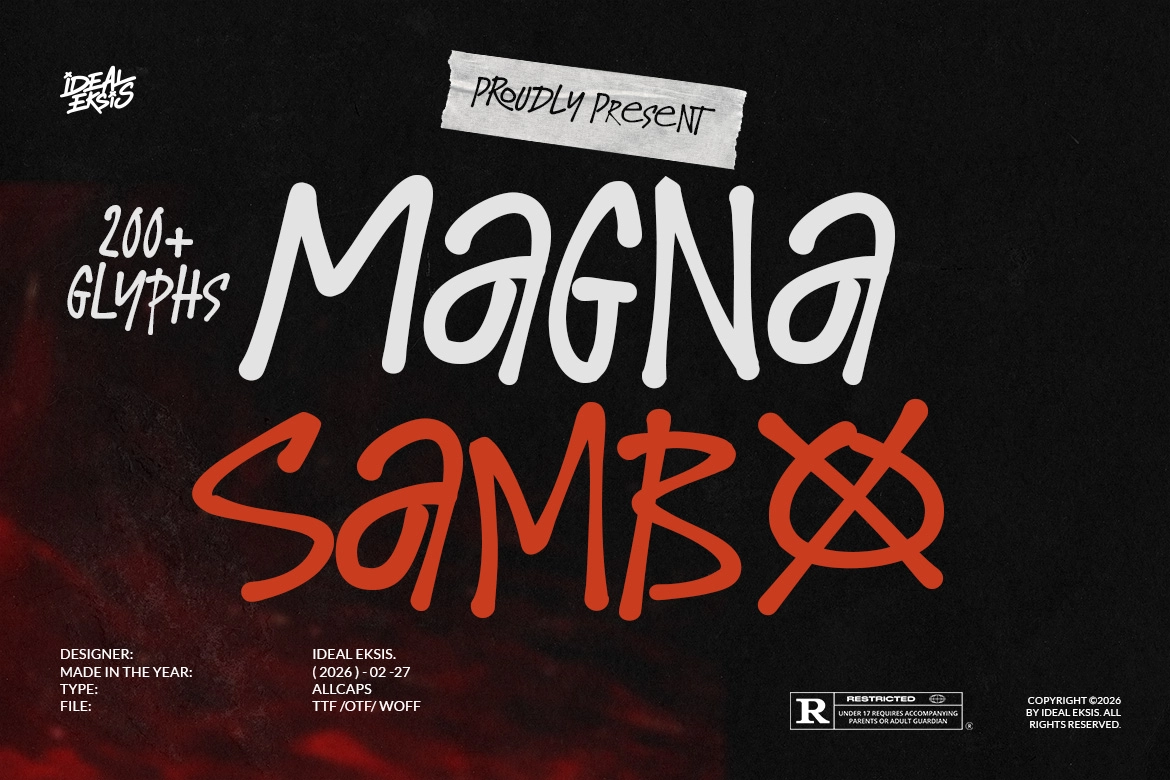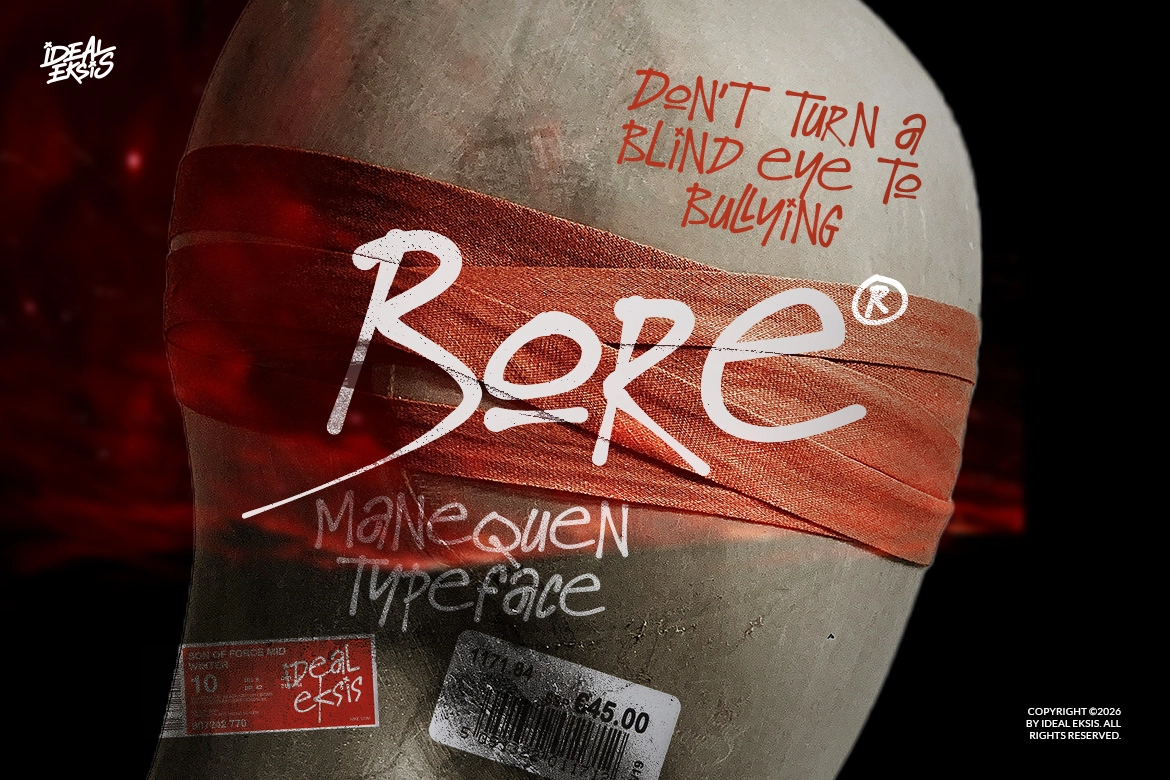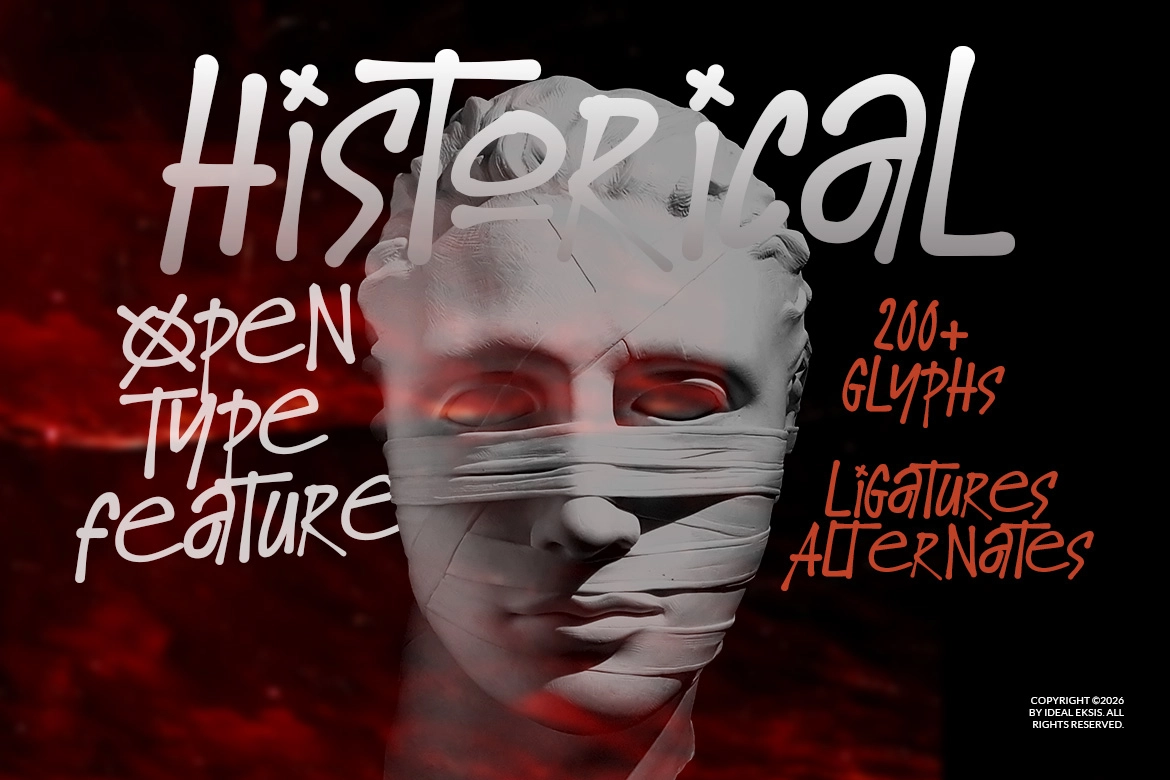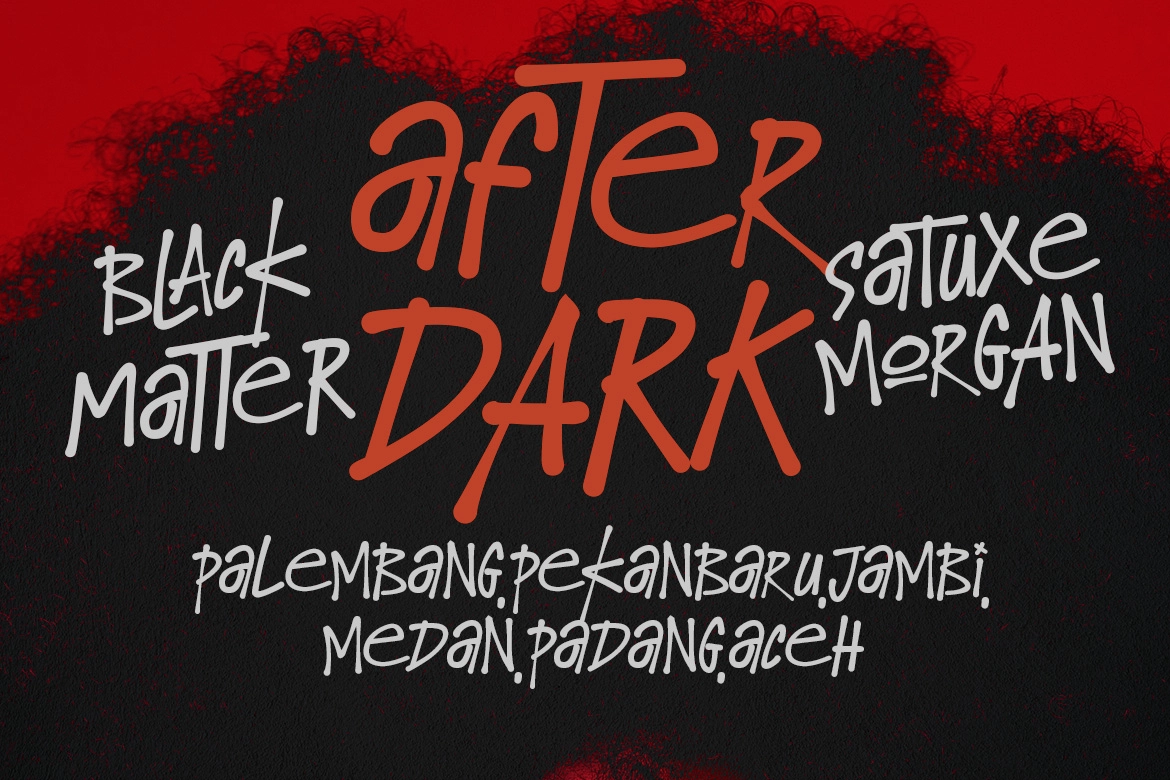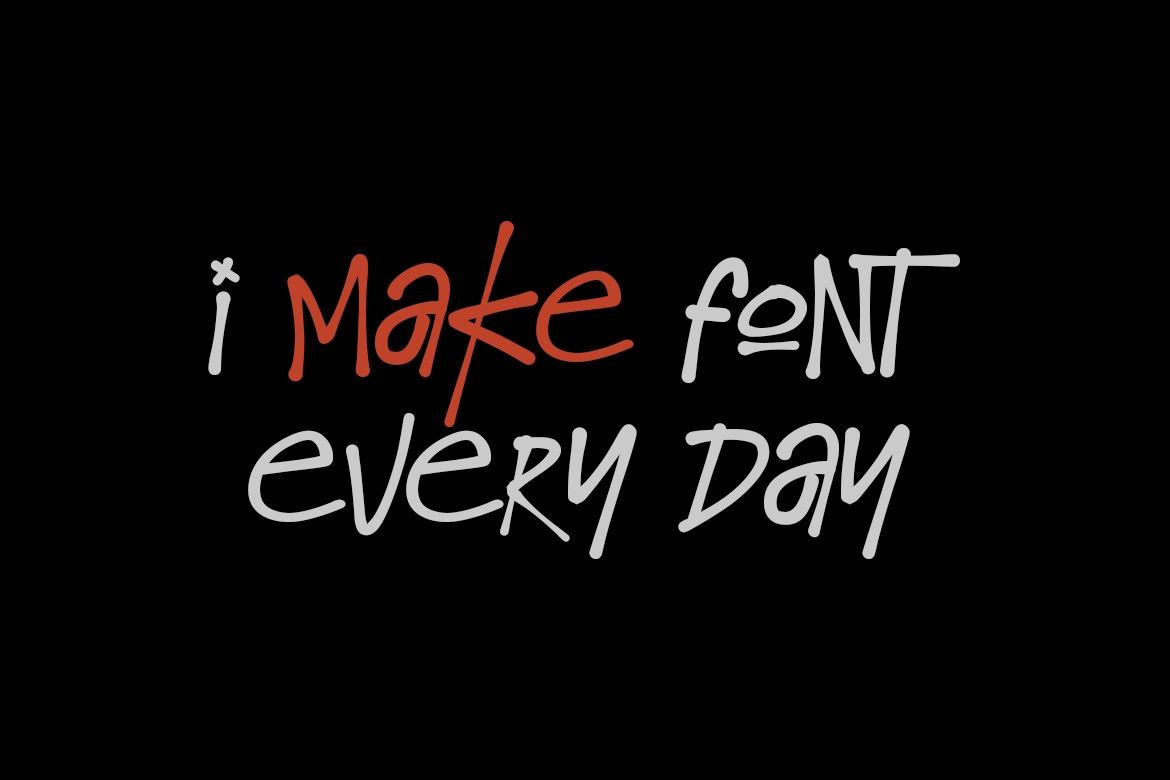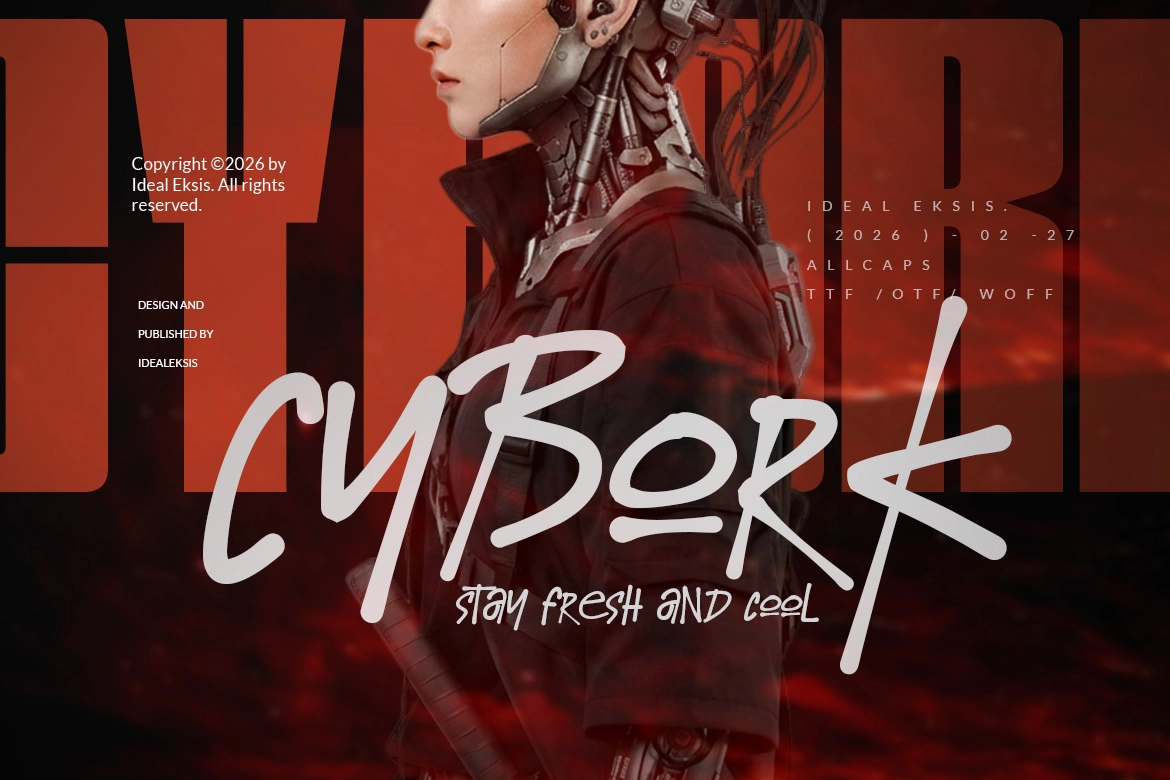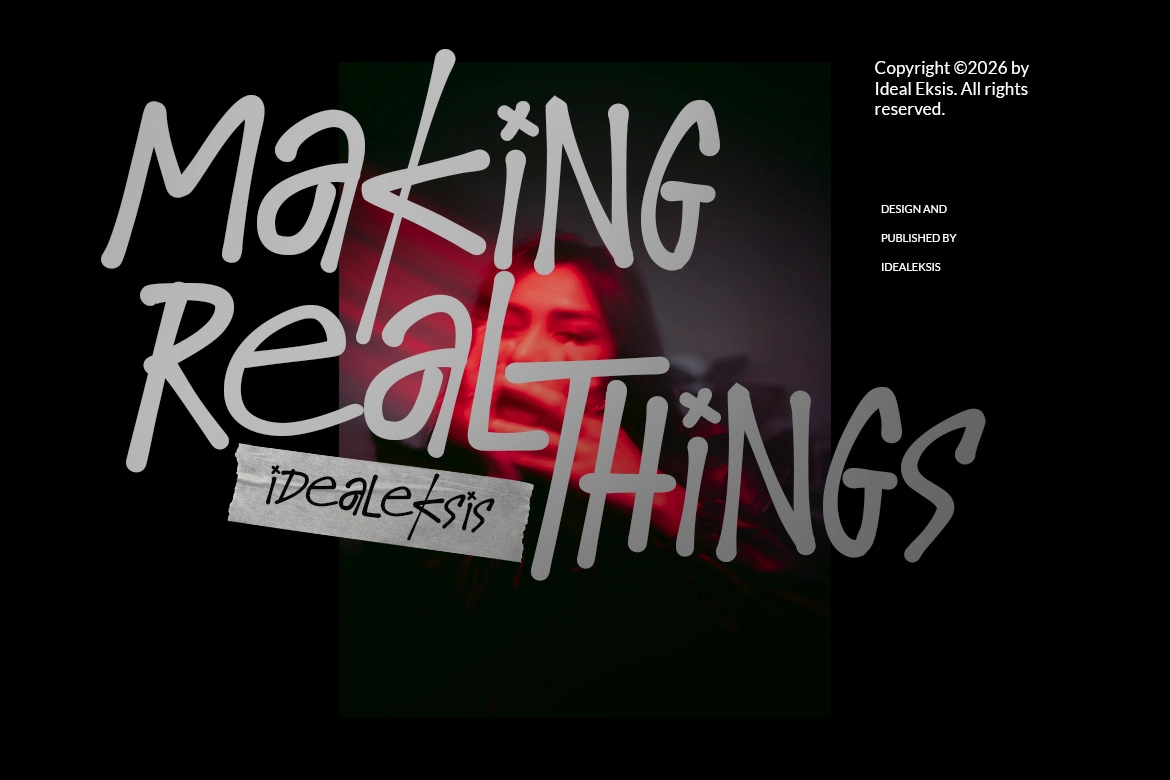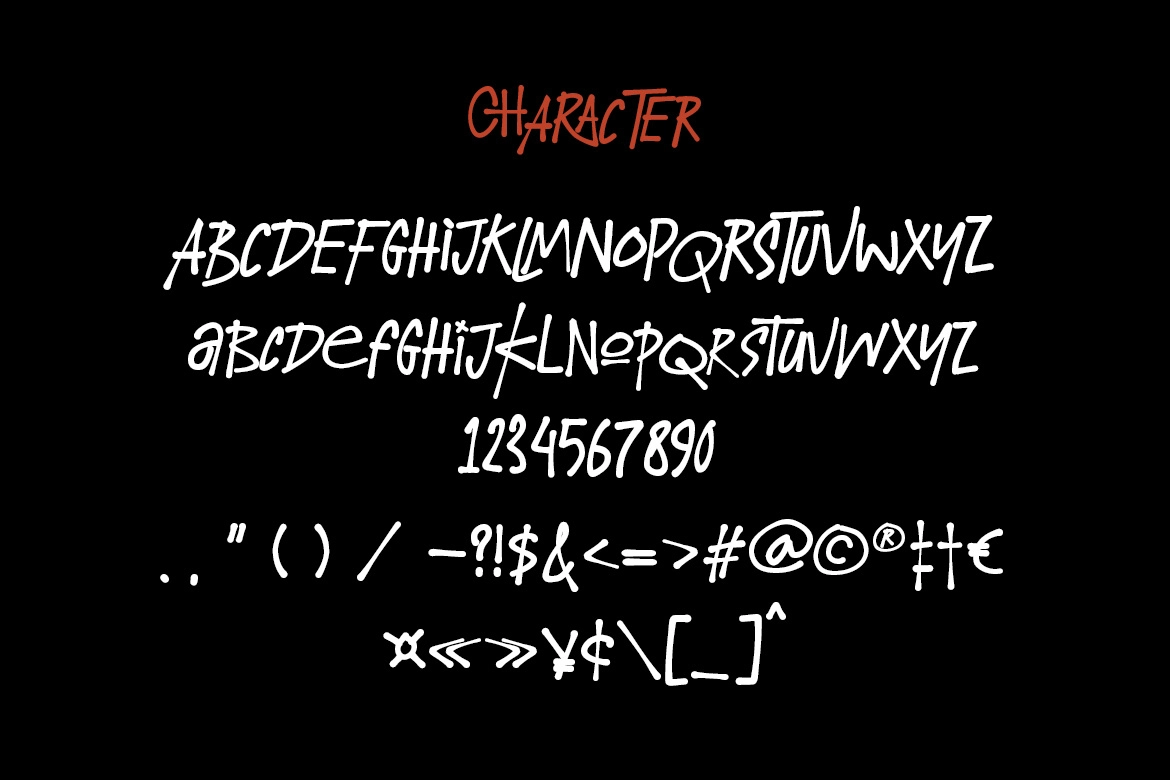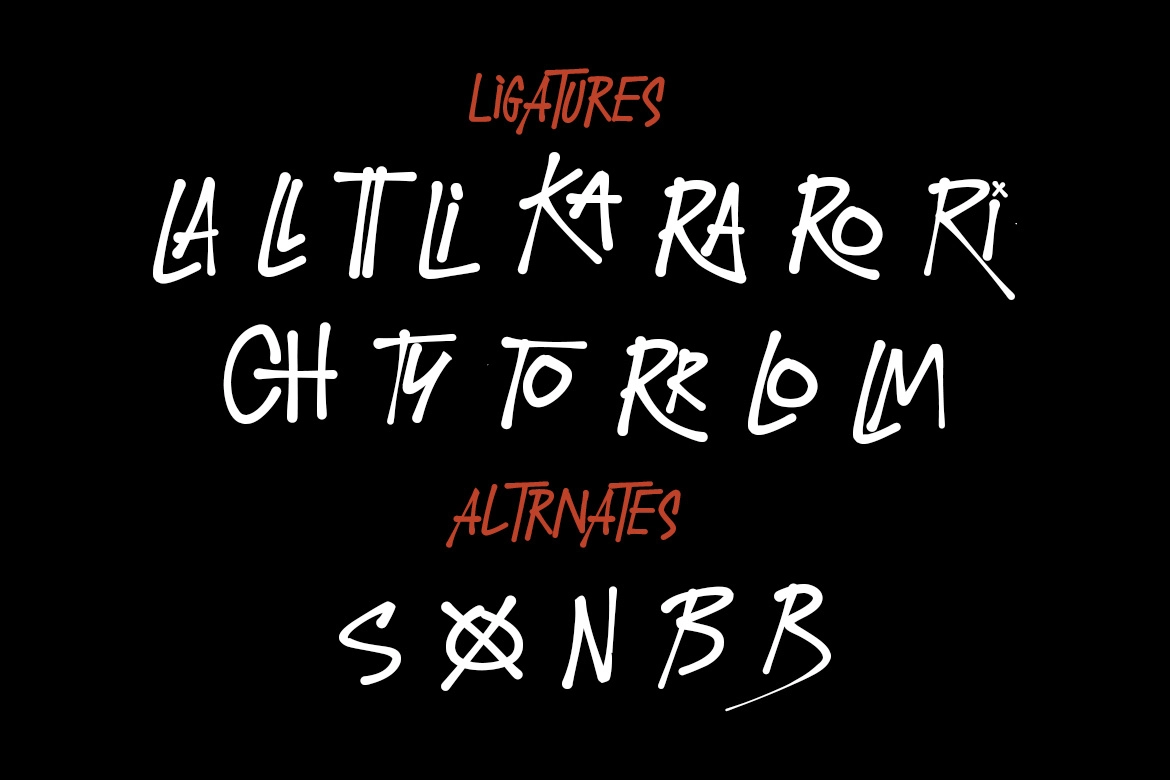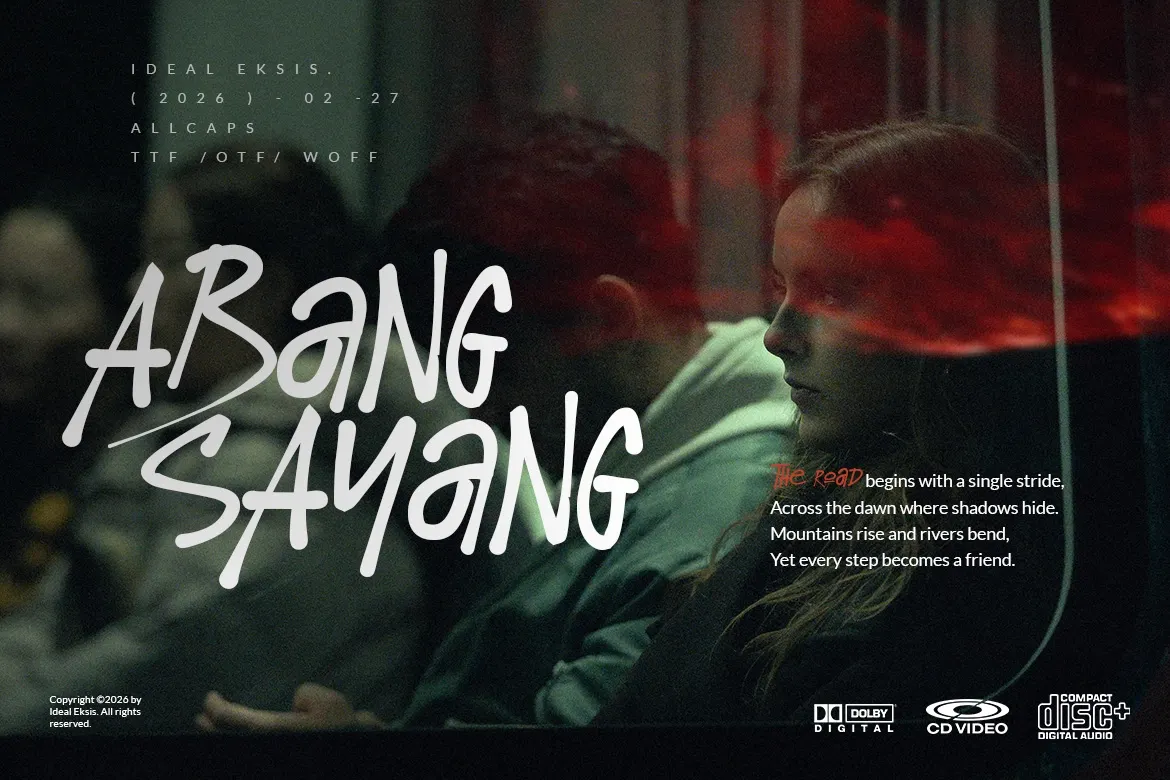
Magna Sambo - Graffiti Handwritten Font
Magna Sambo - Graffiti Handwritten Font is a bold and expressive typeface inspired by the raw energy of street art and marker lettering. Its thick strokes and rounded edges create a strong, handcrafted feel that brings attitude and personality to every word.
Perfect for posters, branding, streetwear, social media graphics, and creative headlines, Magna Sambo delivers a dynamic and authentic handwritten style that stands out with confidence.
• Uppercase (All Caps)
• 200+ glyphs
• Ligatures & alternates
• Numerals & punctuation